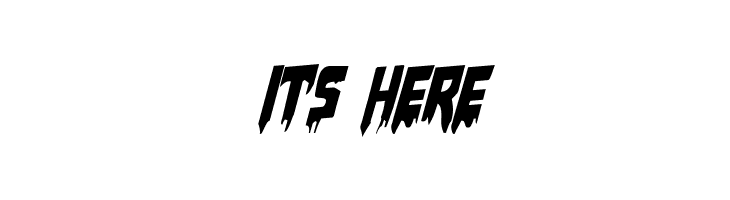
A bold, 3D italic font with a dripping, horror-themed style.
A bold, horror-themed font with a dripping, 3D effect.
A bold, jagged font with a horror-inspired, dripping effect.
A bold, horror-themed font with jagged, dripping edges.
A horror-themed, dripping font ideal for spooky designs.
A dramatic, horror-themed font with sharp, jagged edges and a condensed italic style.
A bold, dripping font ideal for horror and Halloween themes.
A bold, jagged, and italic font with a horror-inspired design.
A bold, gradient, and italicized font with a dramatic, edgy style.
A bold, horror-themed font with a dripping, blood-like design and gradient effect.
A bold, jagged font with a horror-inspired, dripping effect.
A bold, jagged font with dripping edges, ideal for horror themes.
A bold, italic outline font with a dripping effect, perfect for horror themes.
A bold, outline font with a dripping, eerie style perfect for horror themes.
A bold, horror-themed font with a dripping effect.
A bold, jagged font with a horror-themed, dripping effect.
A bold, dripping font perfect for horror themes.
A bold, dripping font ideal for horror-themed designs.